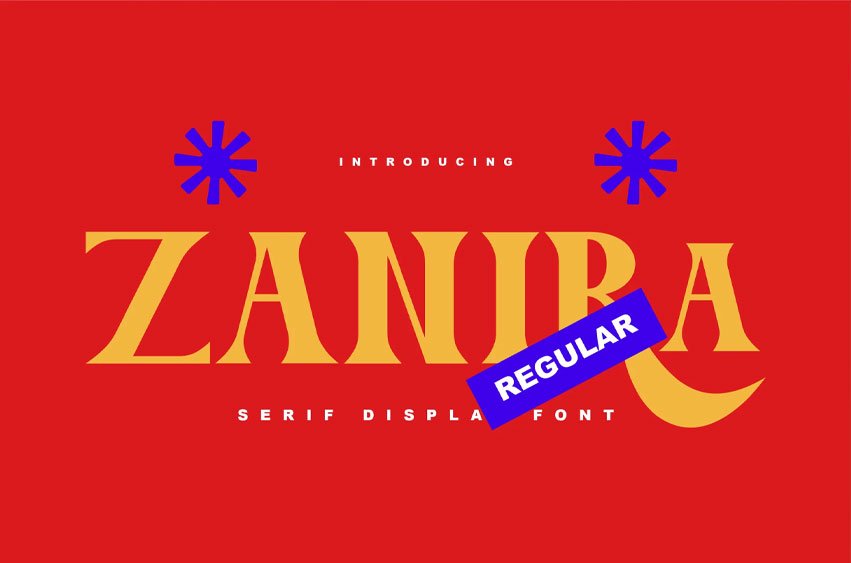
Zanira Font is a stylish and distinctive serif font that blends timeless elegance with a retro touch. With its sharp, well-defined serifs and bold structure.
Zanira captures the essence of classic typography while adding a modern twist.